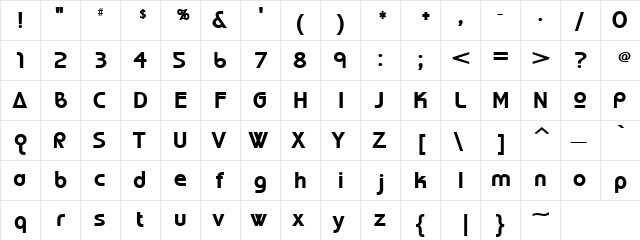
World of Water Regular
Design Context for World of Water Typeface
World of Water is a composed and adaptable typeface that performs quietly and consistently across a wide range of design contexts.